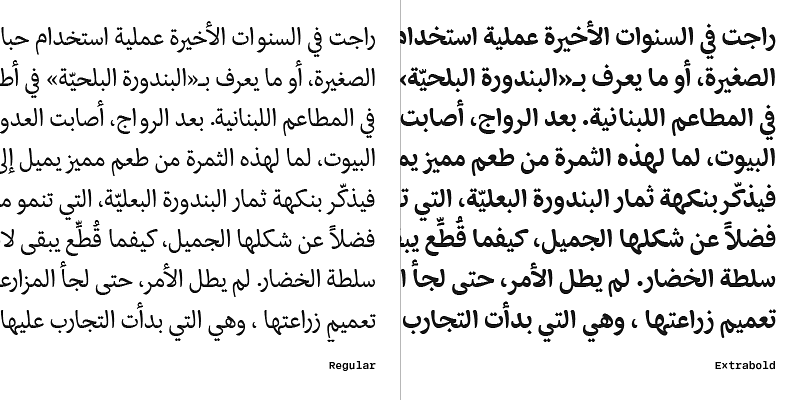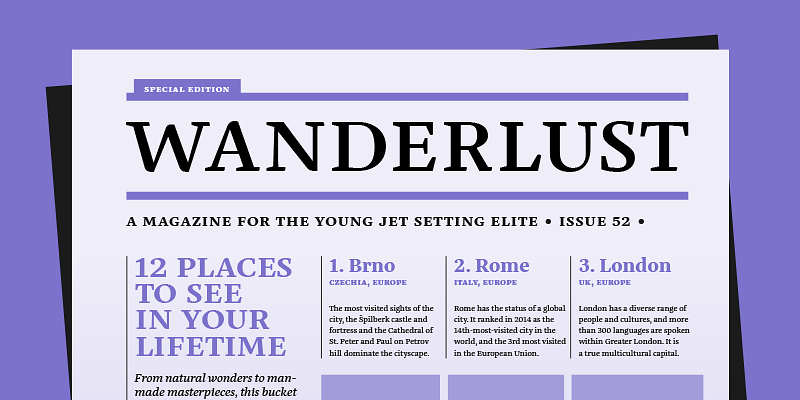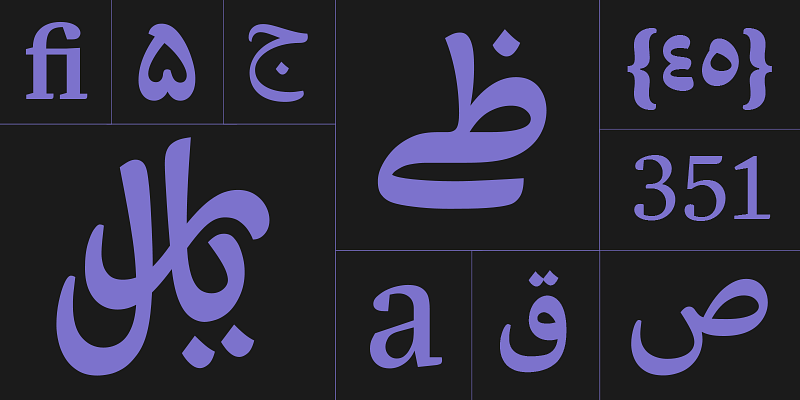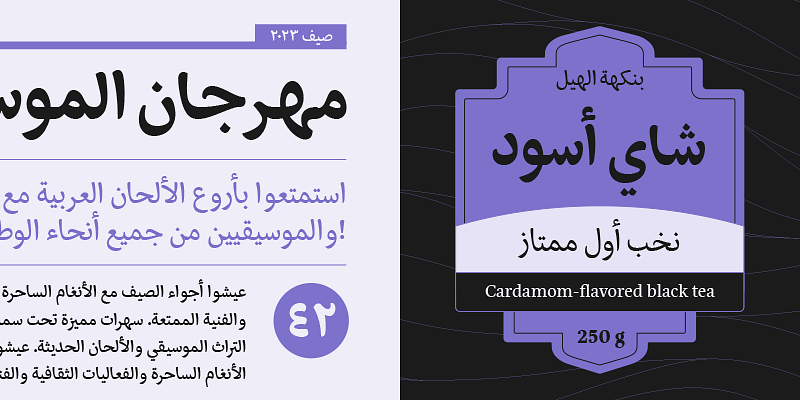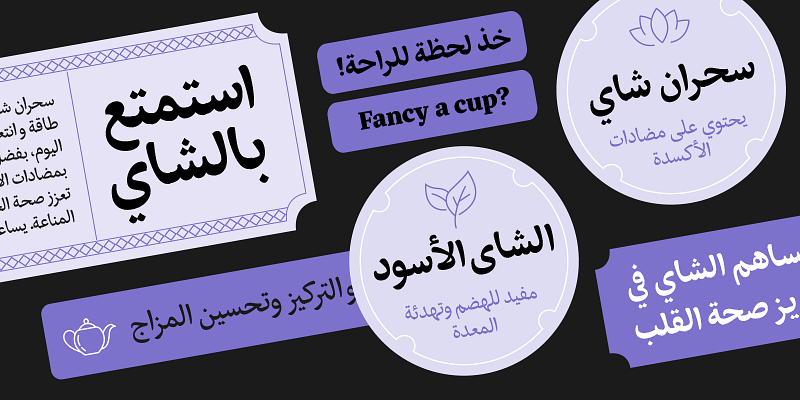
Eskorte means business. From the corporate workplace to a casual lifestyle publication, this Arabic-Latin type family conveys a trim and clean tone — with the sophisticated functionality to support Arabic, Persian, Urdu.